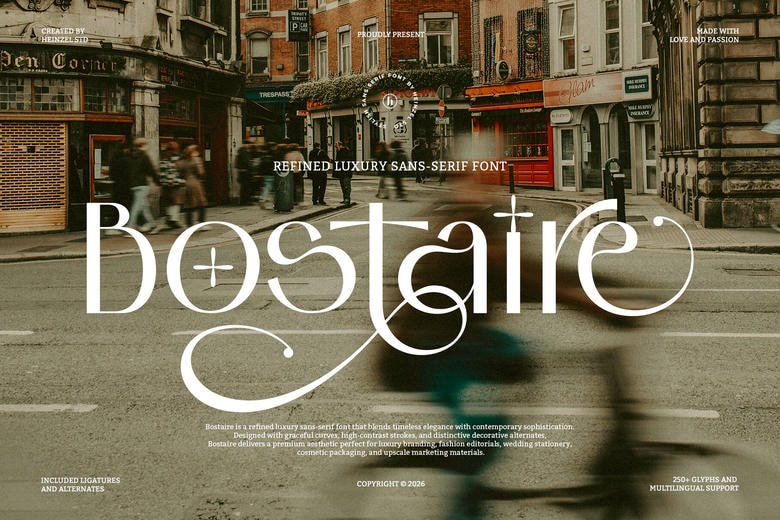
Bostaire Font
Bostaire is a luxury sans-serif font that combines classic elegance with a modern look. With smooth curves, bold strokes, and unique decorative features, it brings a premium feel to any design.
Bostaire Sans Serif Font